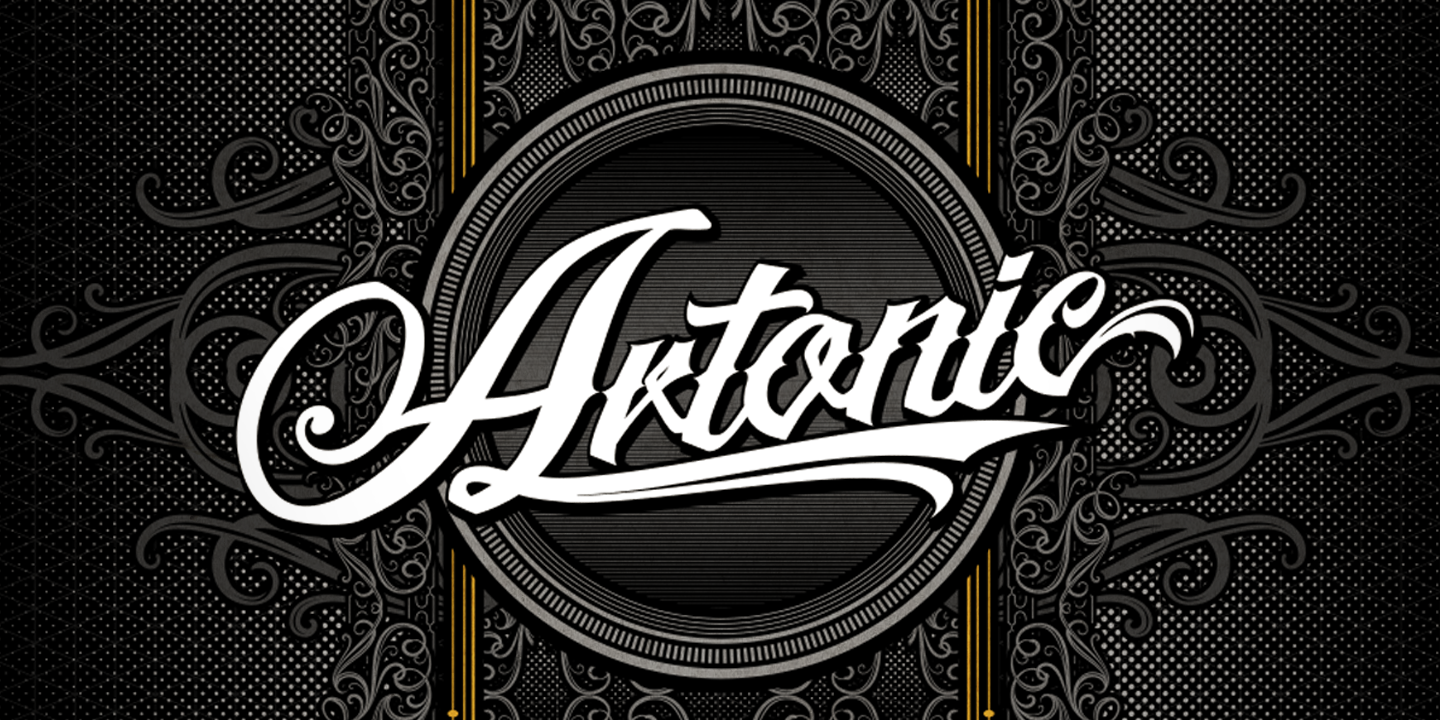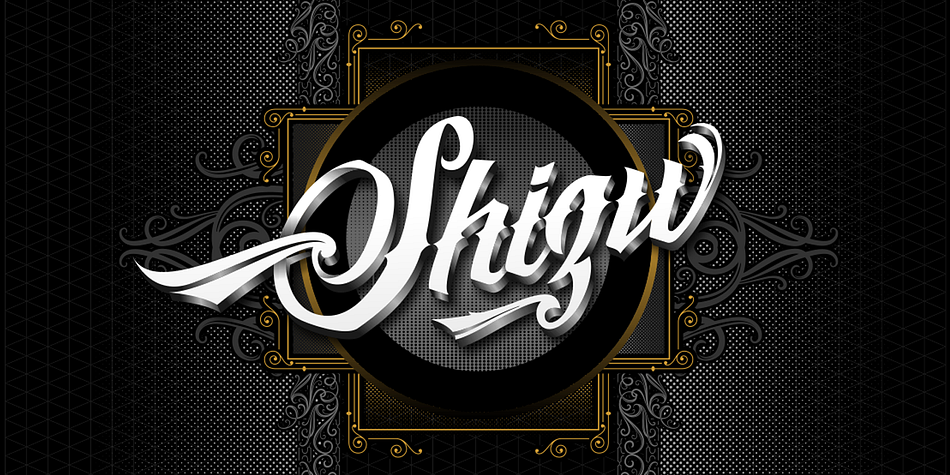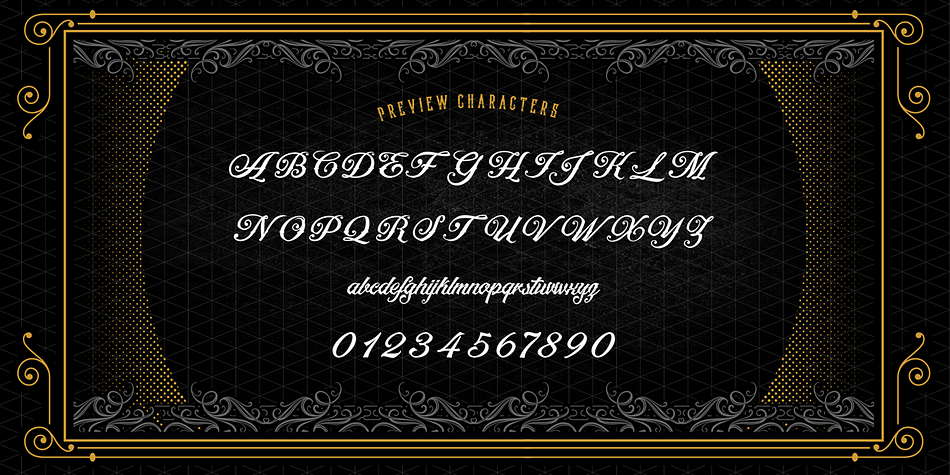
Designed by Cucu Supriyadi, Artonic is a brush script font family. This typeface has three styles and was published by Seventh Imperium.
Artonic is a tattoo script typeface inspired by elegant script and sharp looking typeface. It is flowing , elegant, sharp and bold.
These typefaces are made with pride and passion for urban tattoo design.
Of course, Artonic comes with a variety of ligatures and alternative forms,
available through OpenType features.
| Foundry | Seventh Imperium |
| Style | Brush Script |
| Designer | Cucu Supriyadi |